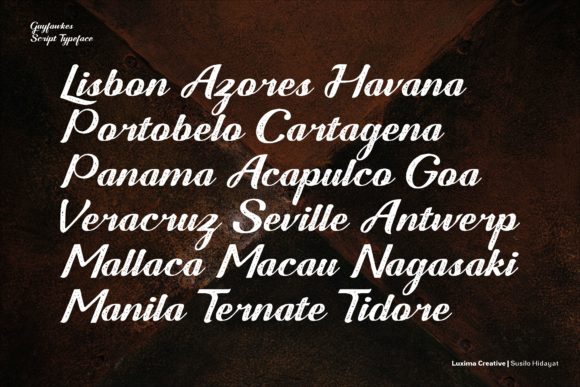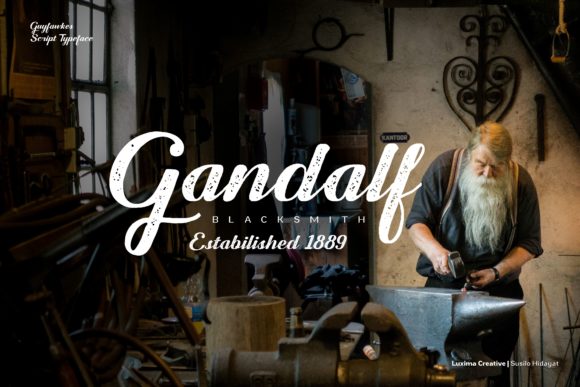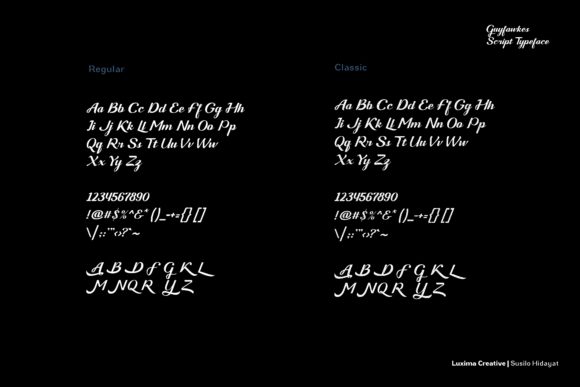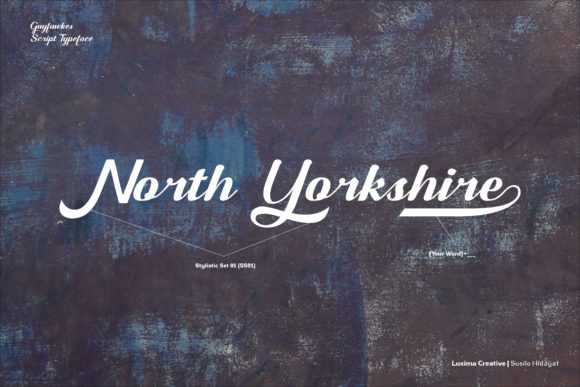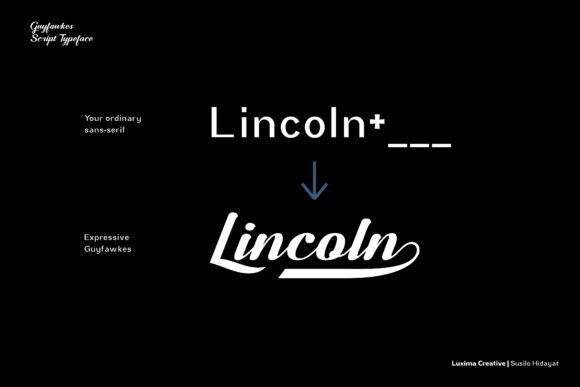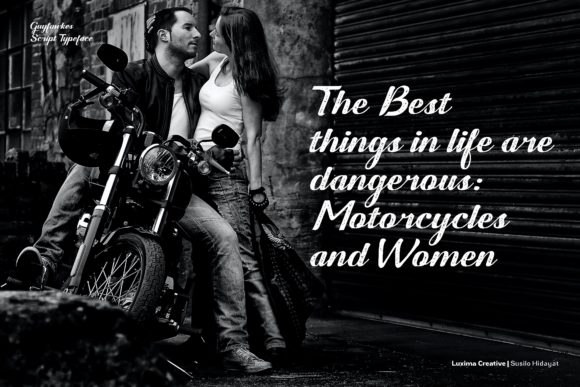
Introduction to Guyfawkes Font
Guyfawkes is a beautiful and cursive handwritten font.
It has a warm touch and is ideal for each of your festive designs It is suitable for any branding, product packaging, invitation, quote, t-shirt, label, poster, logo that you wish to develop.
Key Features of Guyfawkes Font
Why Choose Guyfawkes Font?